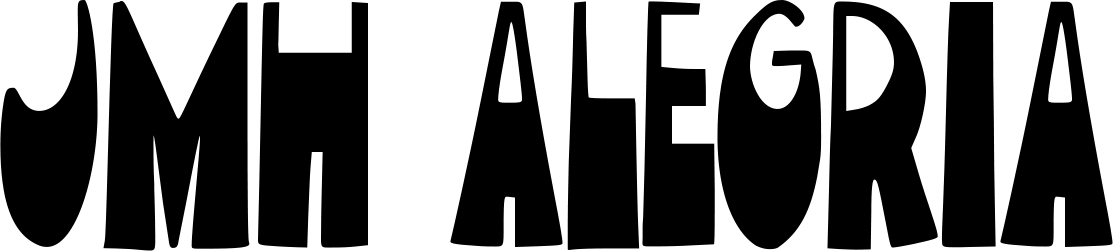
JMH Alegria Font
Need a little bit of fun for your text? You should use this hippie font to achieve that! This font is called JMH Alegria and it has a cheerful and retro feeling to it. You can use it to write comedy movie titles and post…
Need a little bit of fun for your text? You should use this hippie font to achieve that! This font is called JMH Alegria and it has a cheerful and retro feeling to it.
You can use it to write comedy movie titles and posters, theater flyers, show and event introductions, product packaging, and letters. Please note that this font does not have a numeric set and it is an all-caps font.